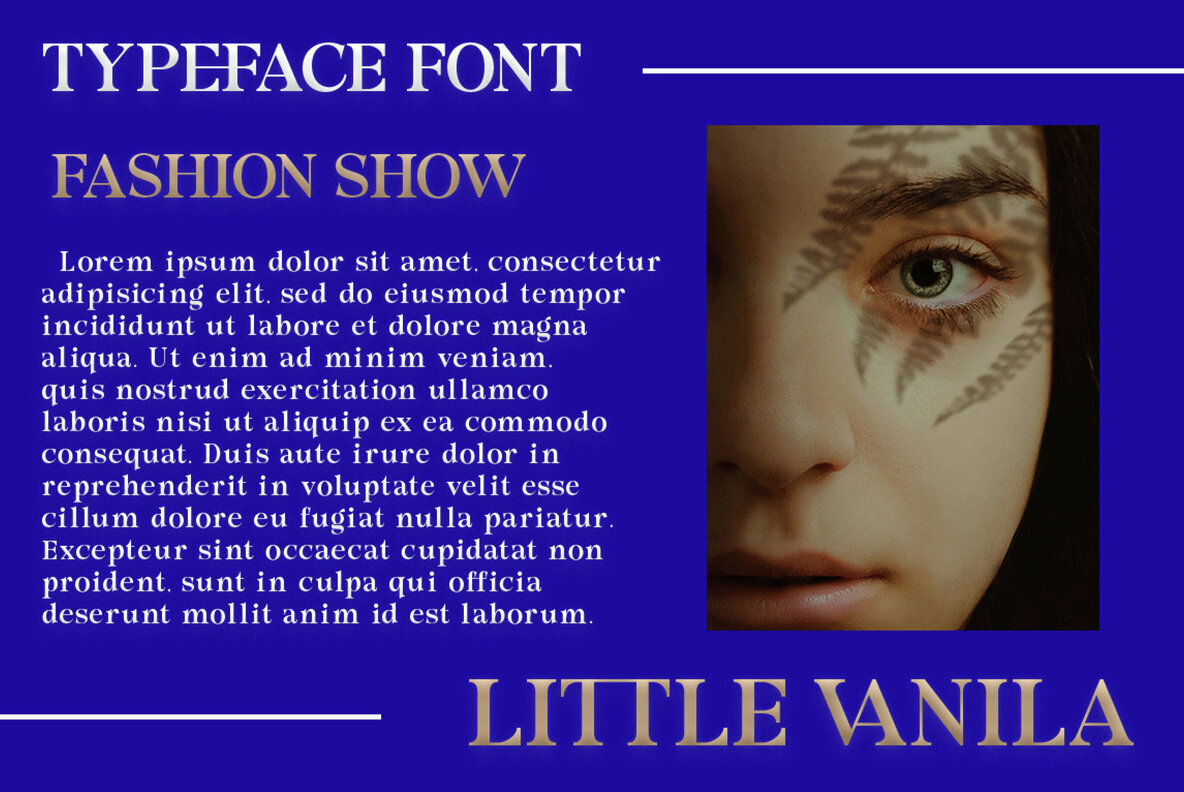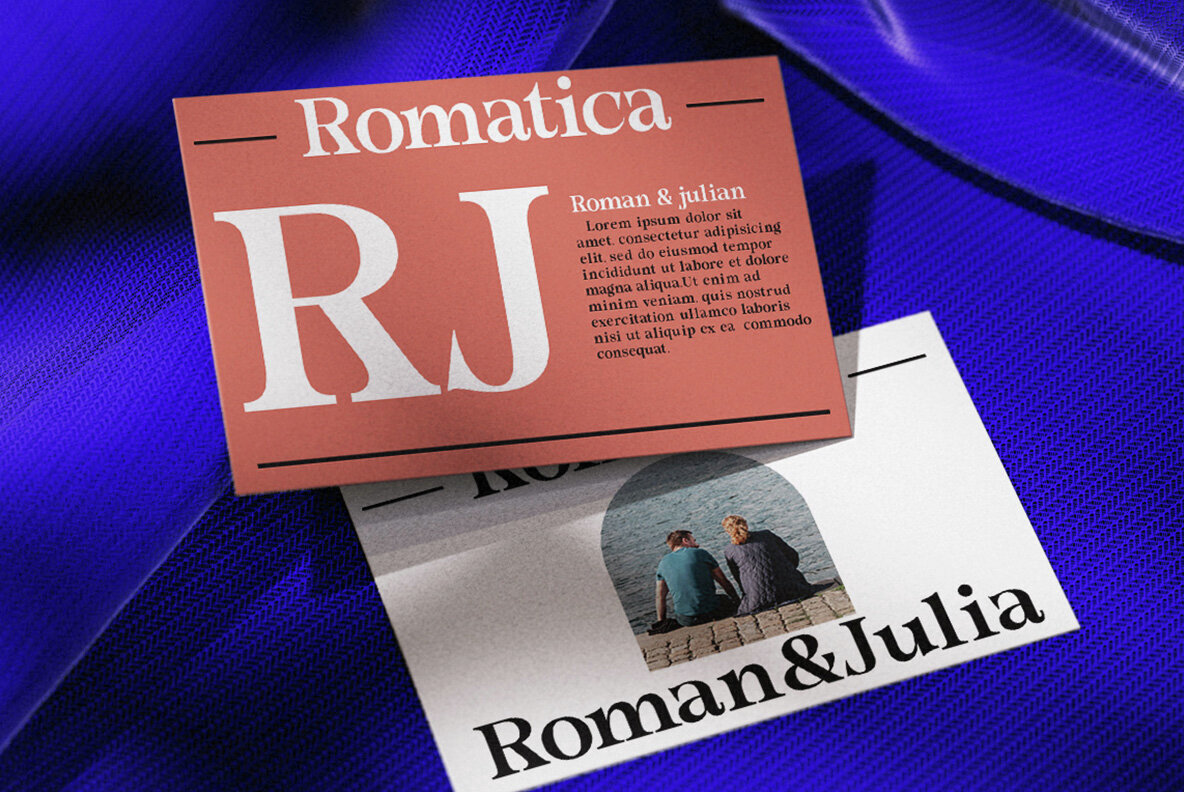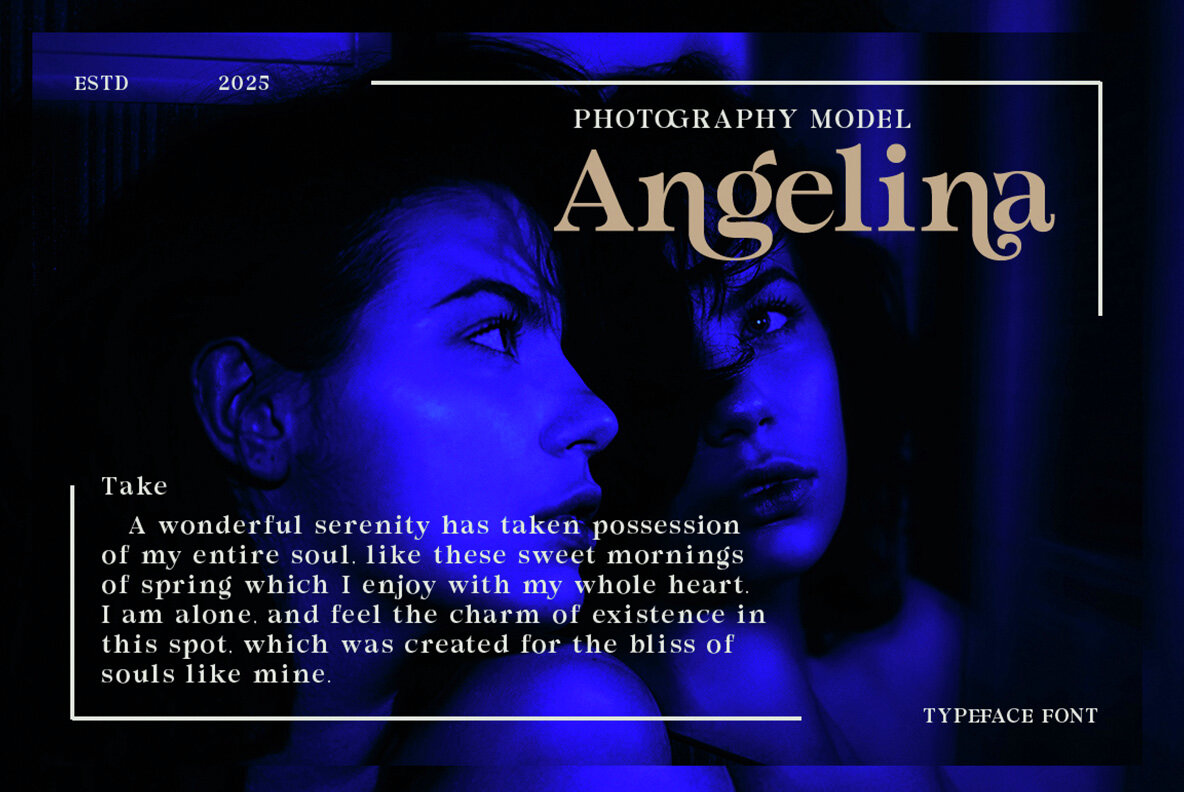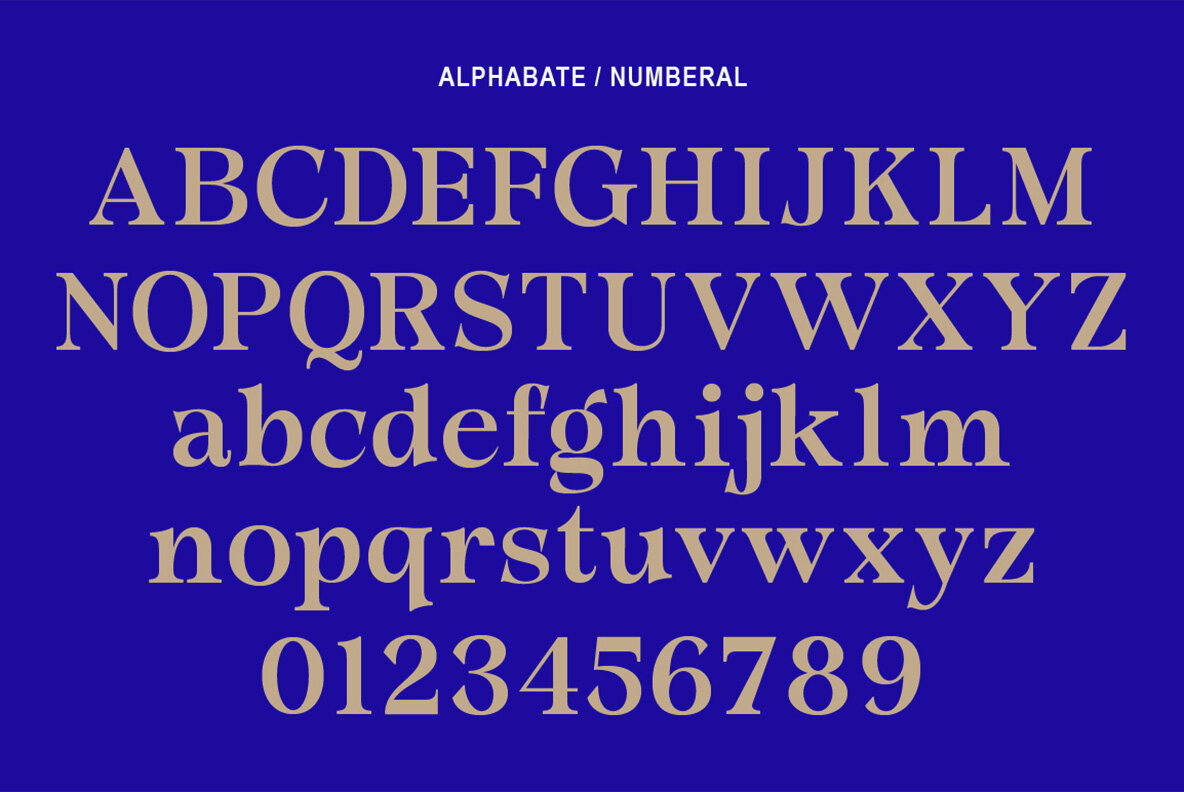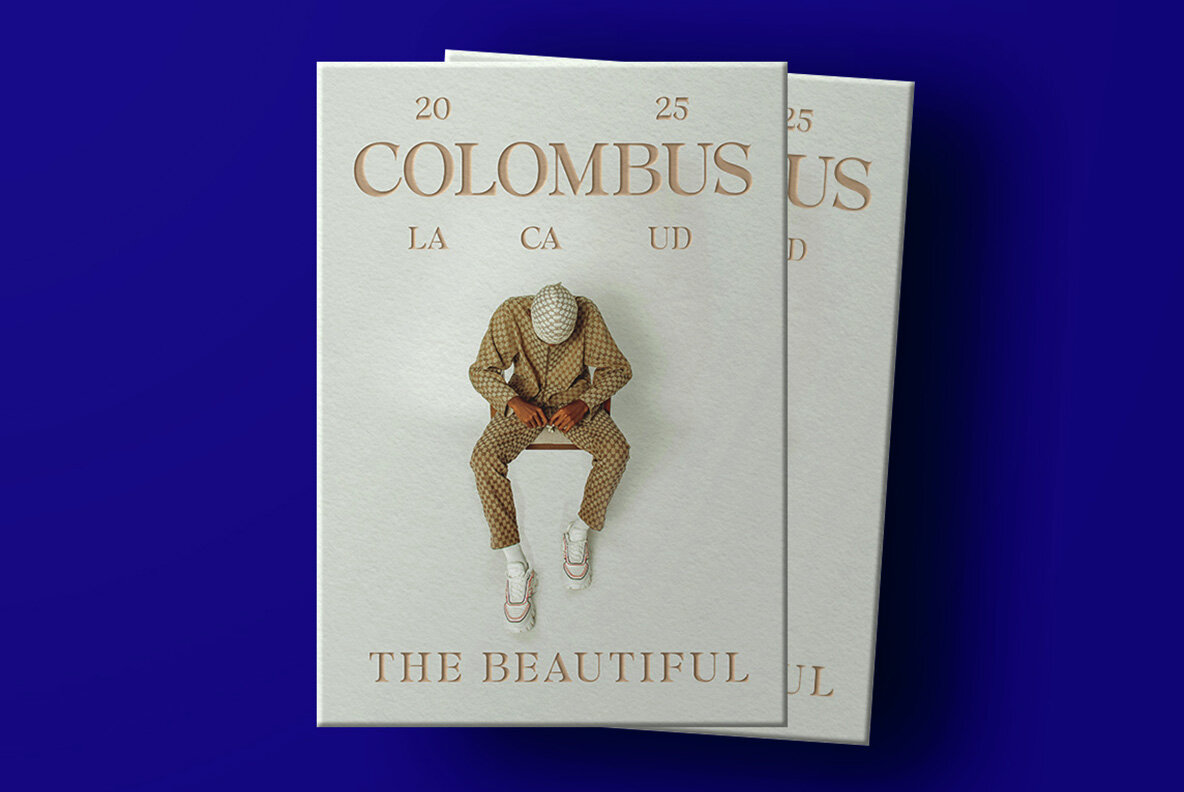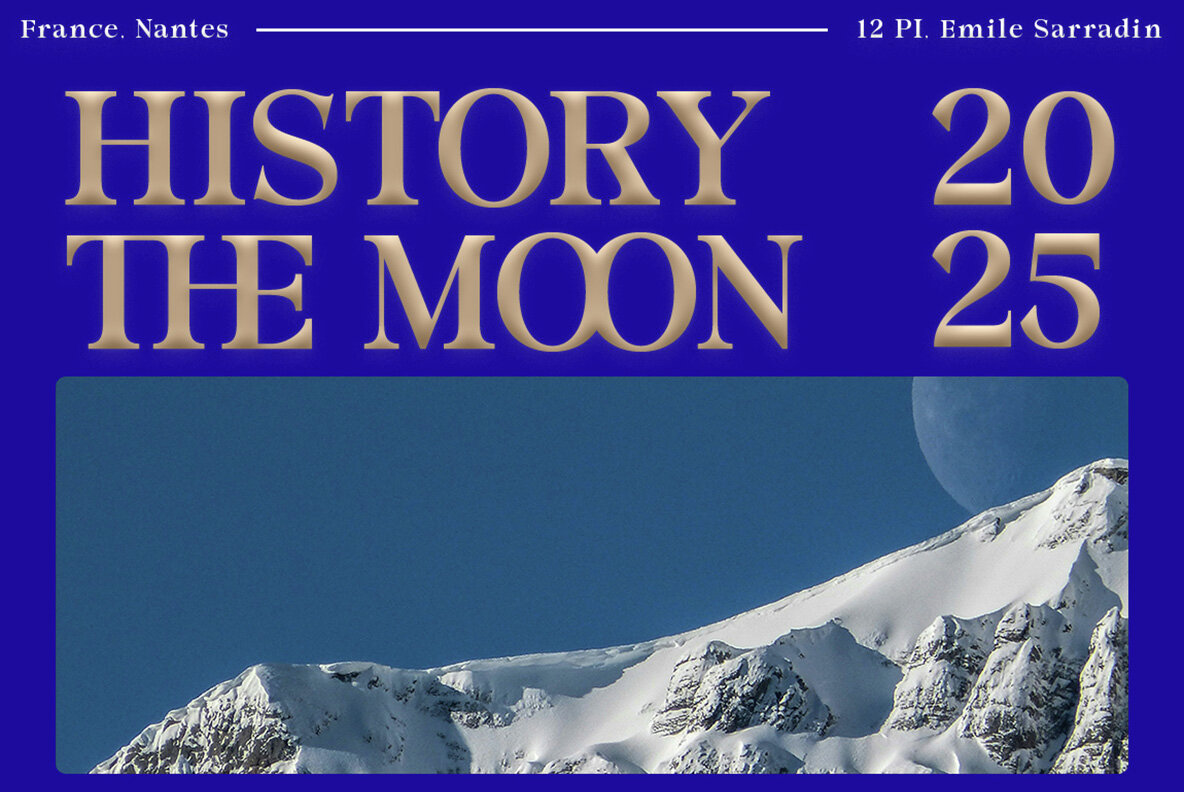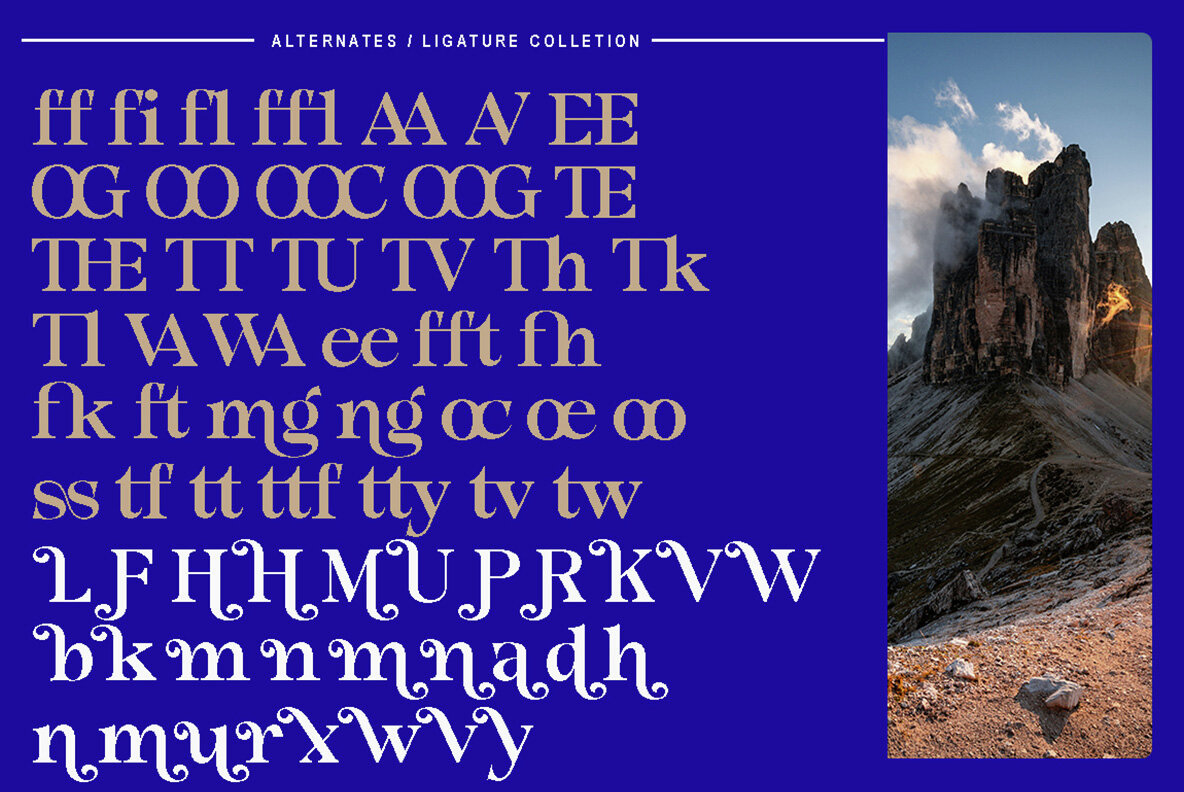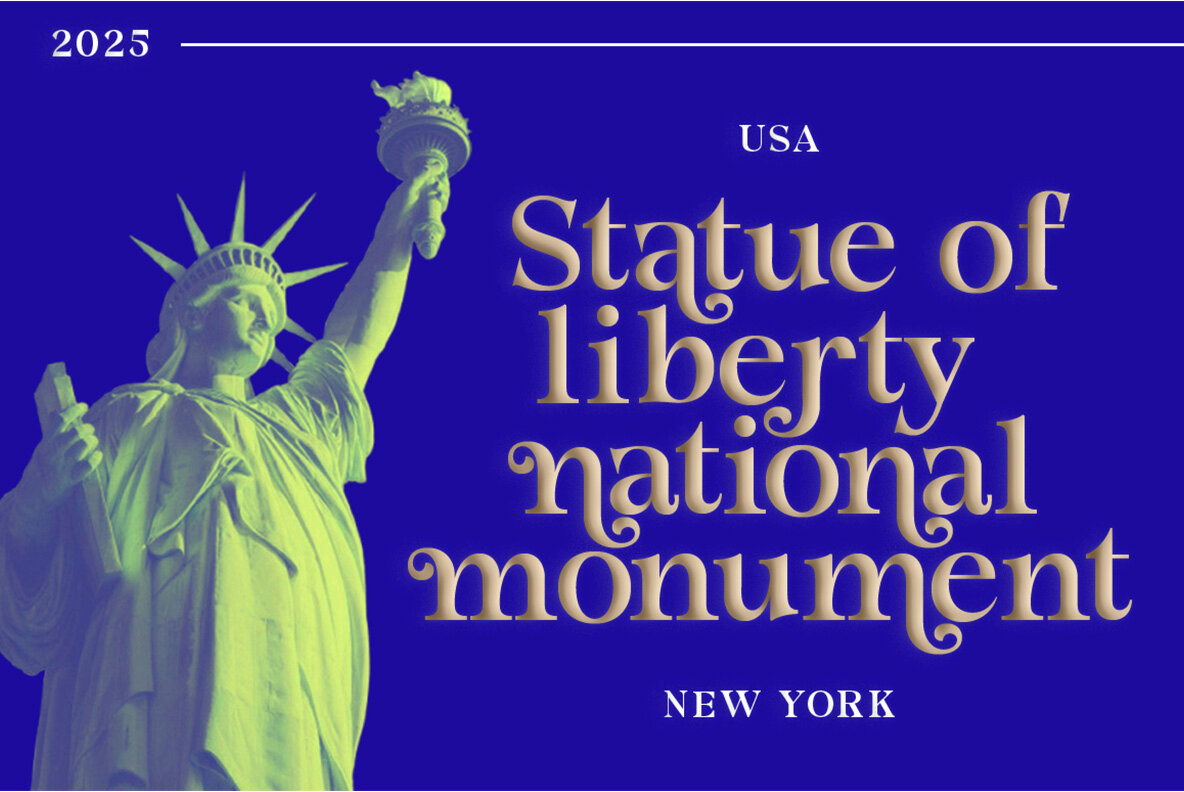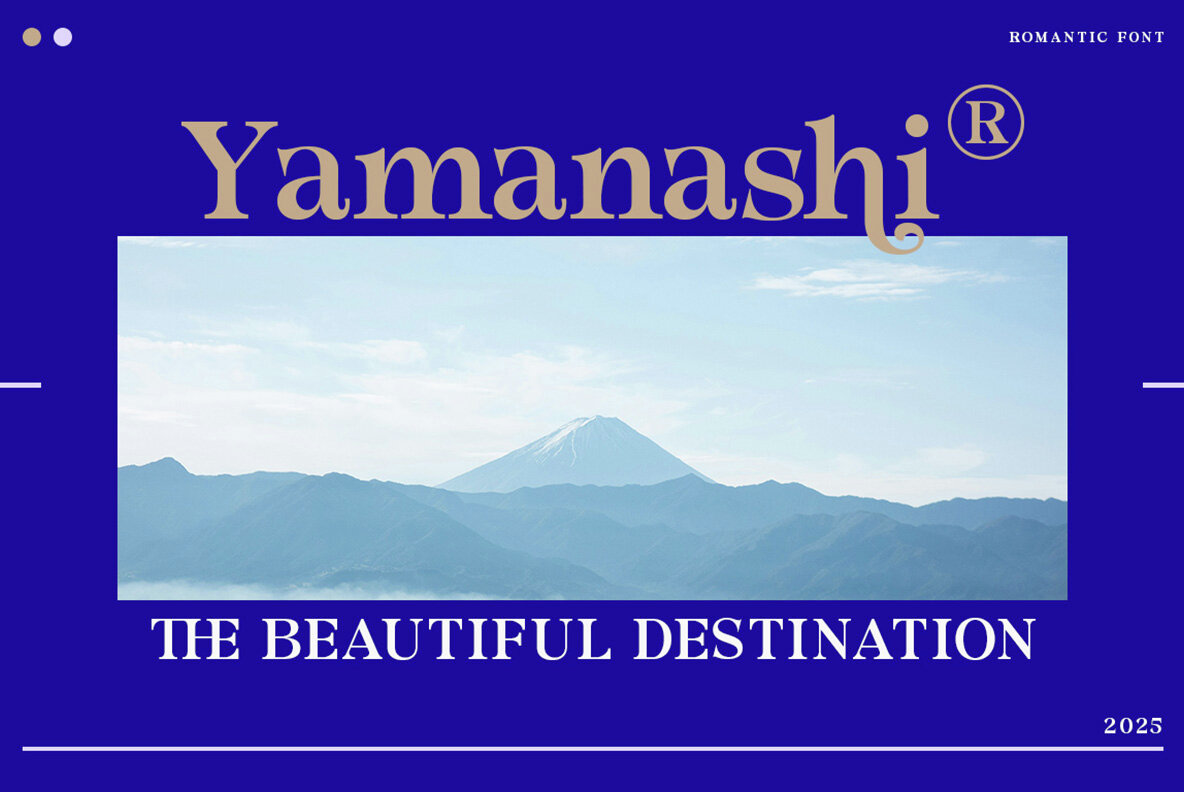
Rocantic Font
Rocantic is a sophisticated serif font designed to imbue your projects with an elegant and classic charm. Its luxurious and romantic aesthetic is achieved through refined serif details, sharp features, and balanced proportions, making it an ideal choice for graphic design endeavors that call for a touch of grace and sophistication.
This font is particularly suited for a variety of applications, including logos, posters, and business cards, where it aims to create a romantic and premium atmosphere. Its timeless style ensures that Rocantic will enhance the aesthetics of any project, providing a polished and upscale visual impact.